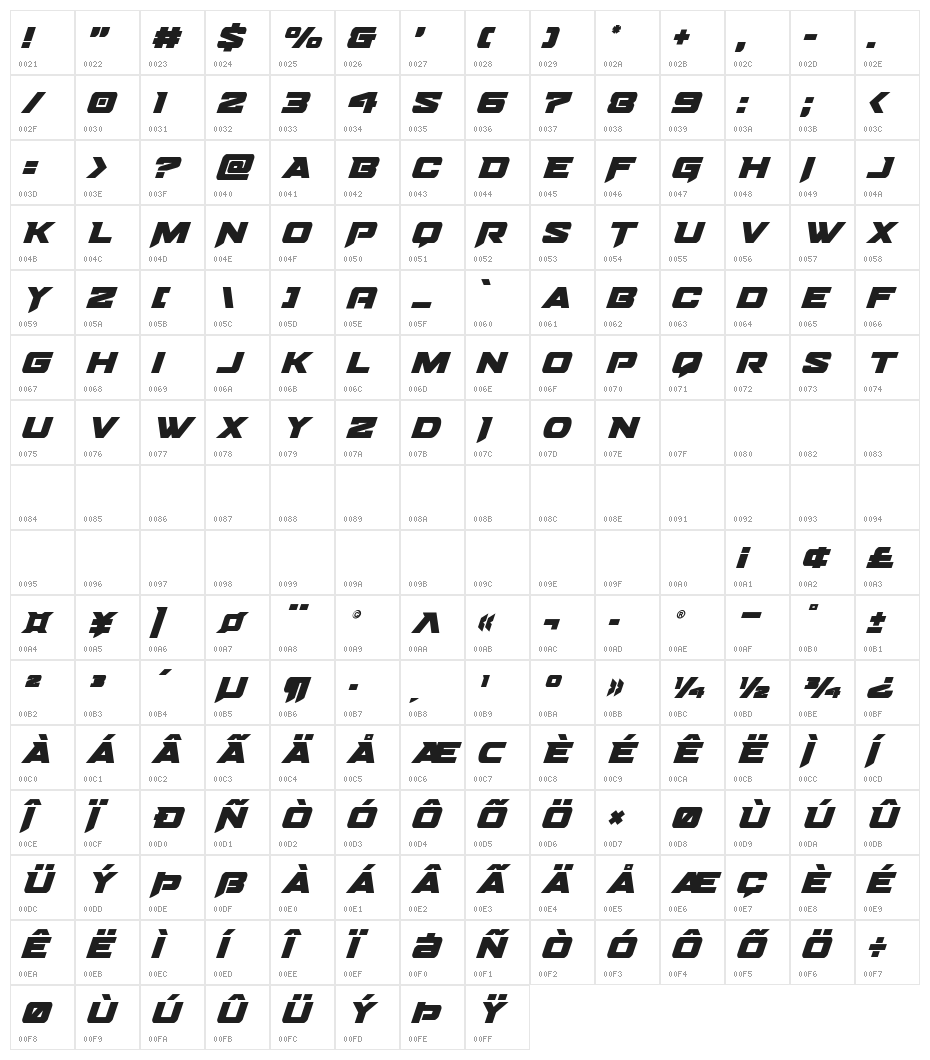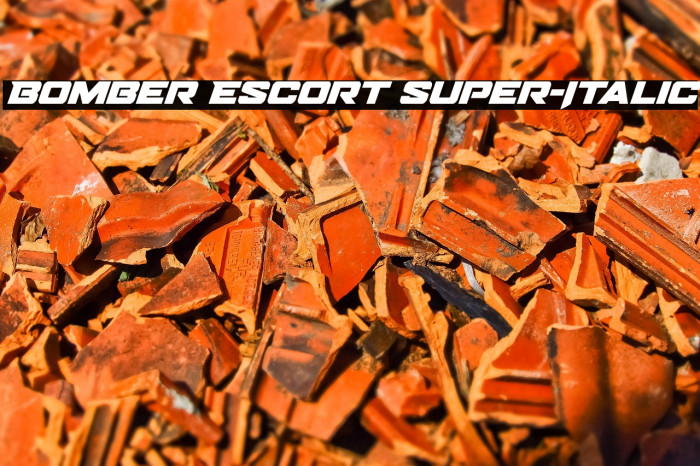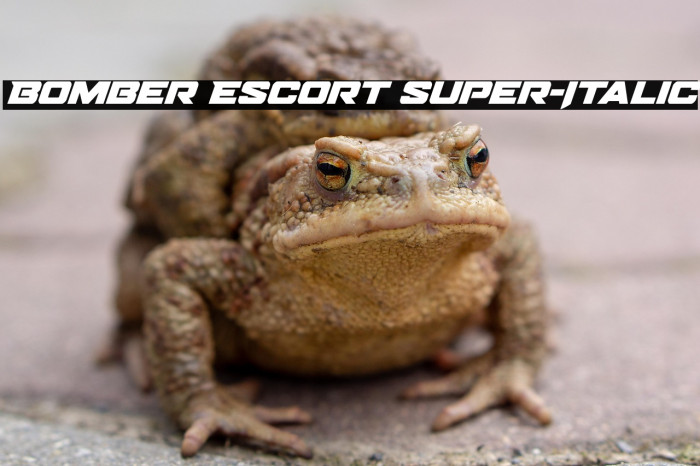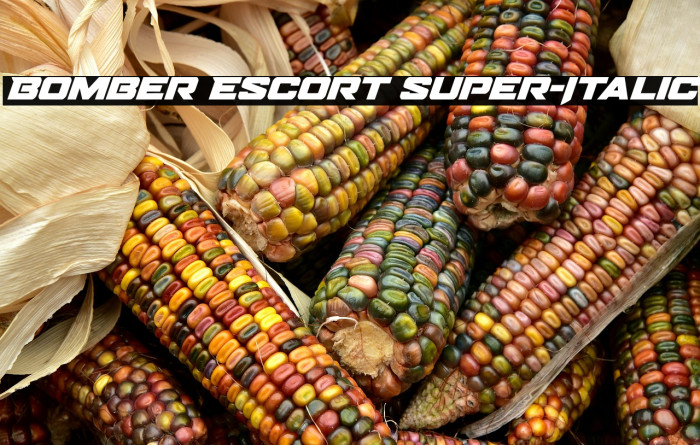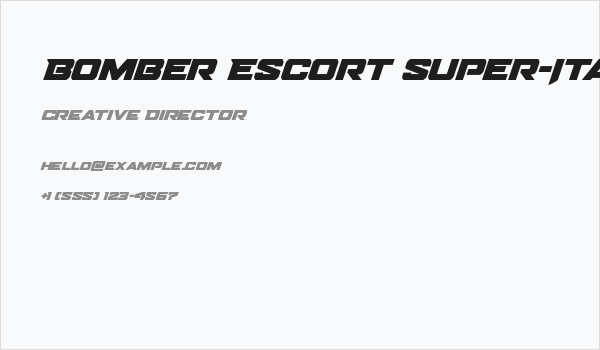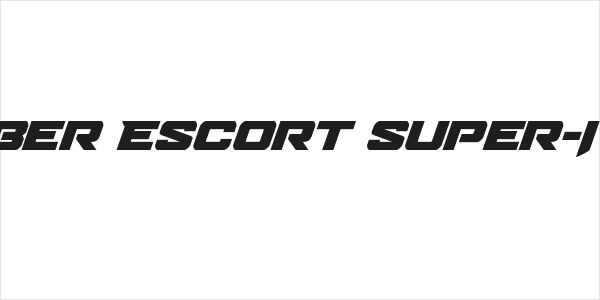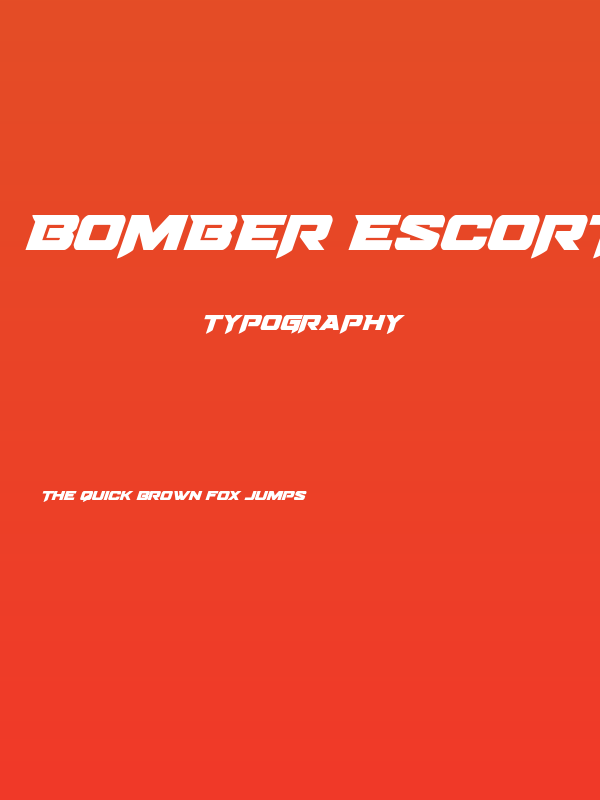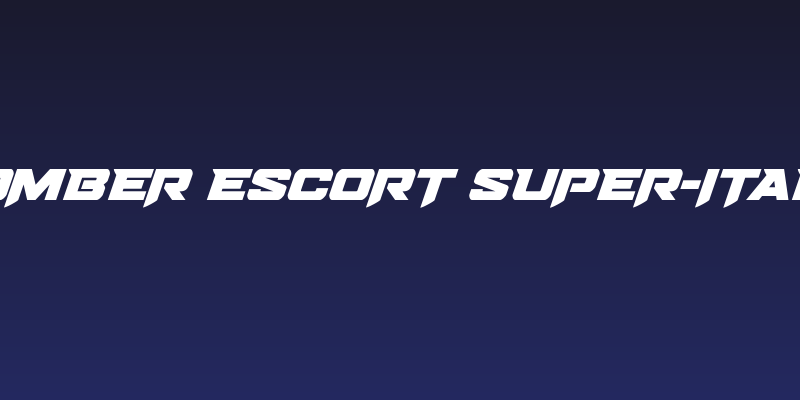
Bomber Escort Super-Italic Font
Bomber Escort Super-Italic Description
This font features a bold and dynamic design with sharp, angular edges and a strong italic slant, giving it a sense of motion and energy. The characters are tightly spaced, enhancing its compact and impactful appearance. The uppercase letters are particularly striking, with unique cuts and angles that add a futuristic and aggressive feel. The numbers and special characters maintain this bold aesthetic, ensuring consistency across all glyphs. This font is ideal for projects that require a modern, edgy look with a touch of intensity.
| Proposed Projects | Ideal for sports branding, video game titles, action movie posters, and dynamic logo designs. |